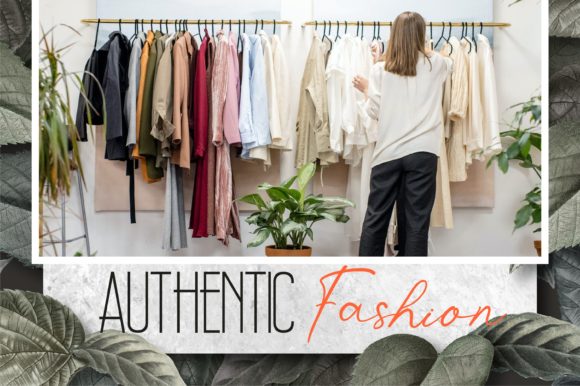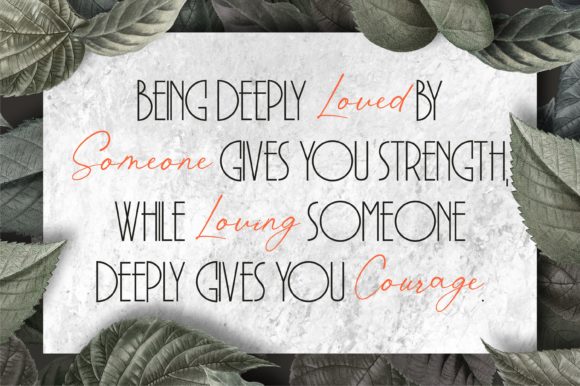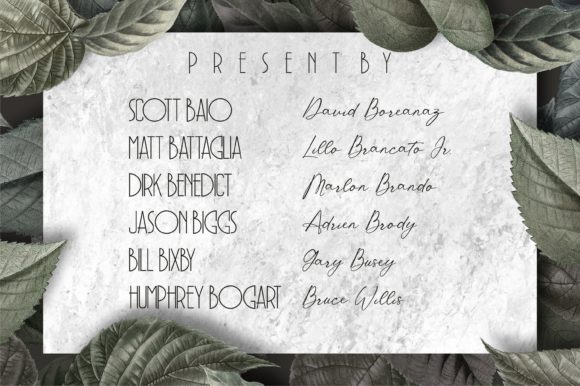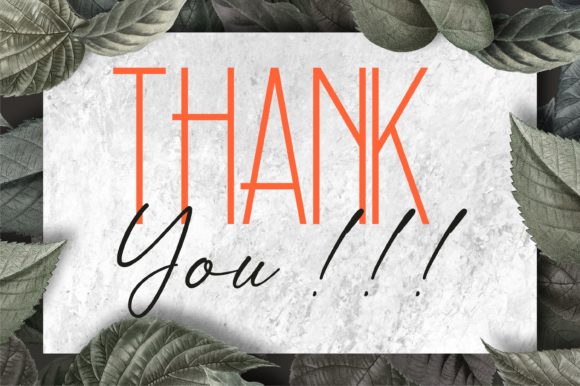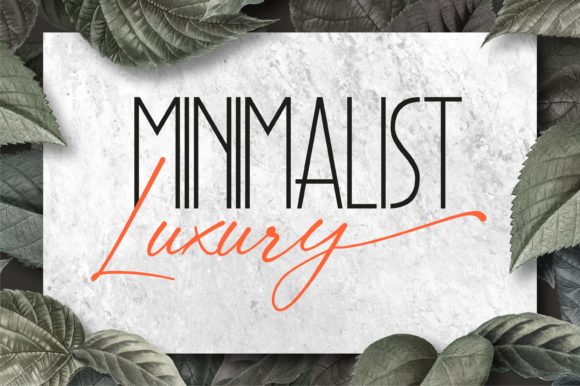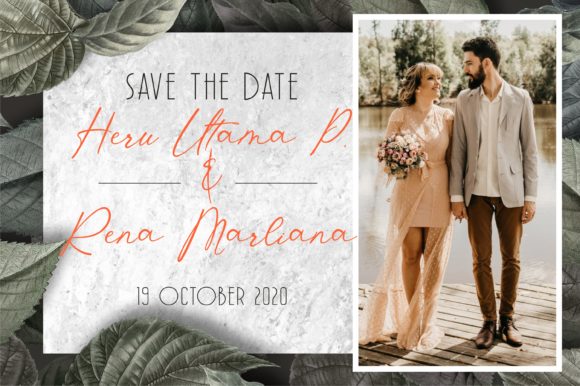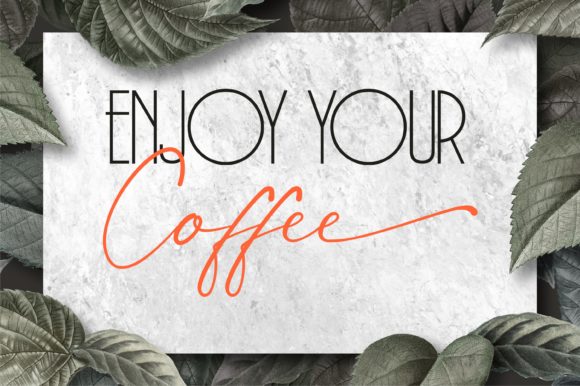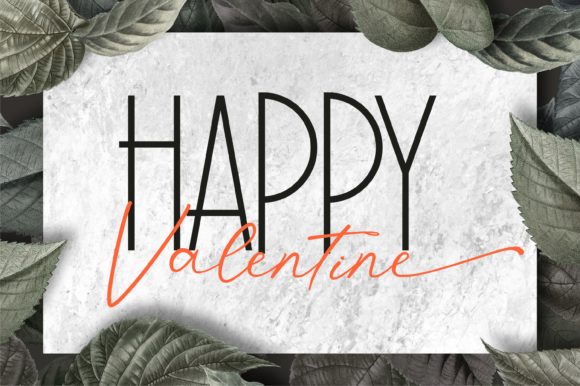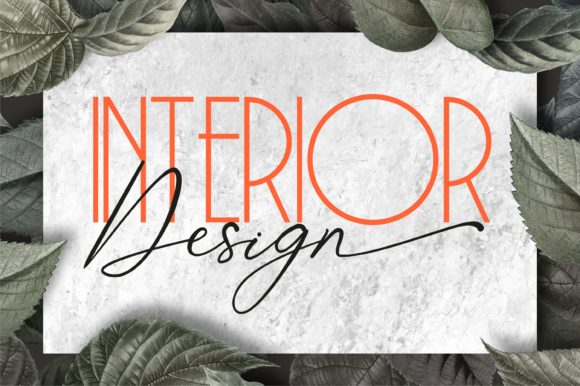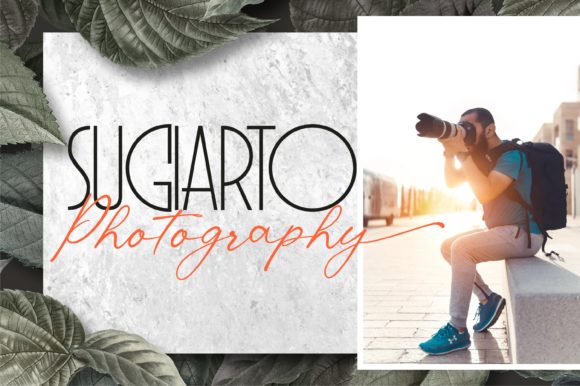
Bloom Christine Font
About Bloom Christine Font
Bloom Christine is a unique duo font (sans serif and script). Incredibly versatile, this font fits a wide pool of designs, elevating them to the highest levels. Add this font to your favorite creative ideas and notice how it makes them come alive!